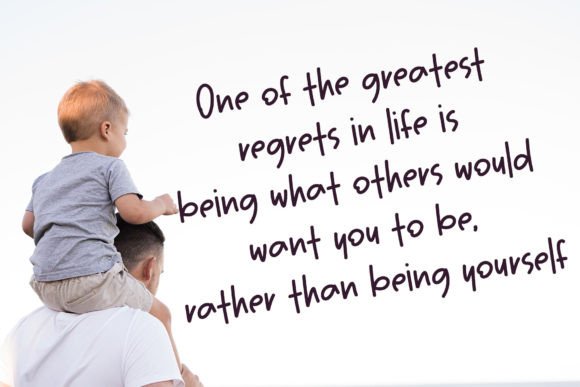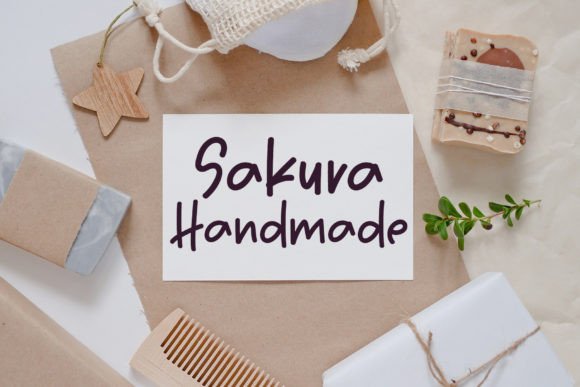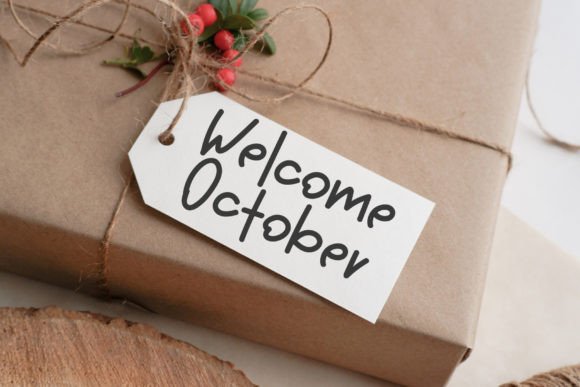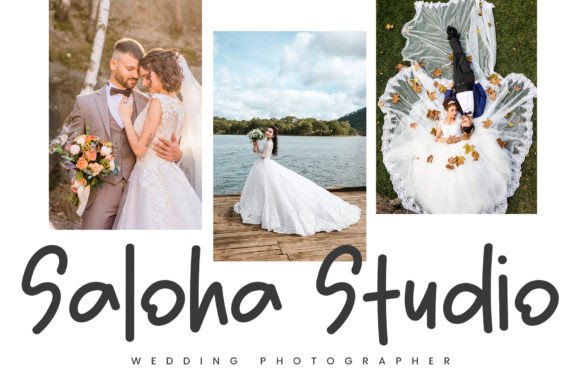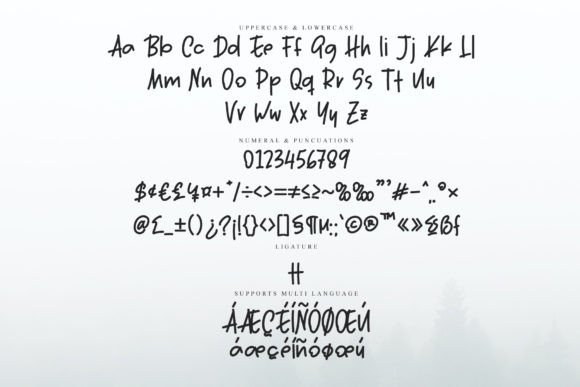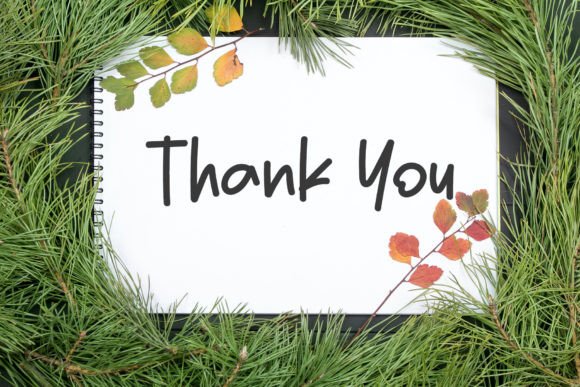
Skeleton Font
About Skeleton Font
Skeleton is a unique handwritten font, great for initials and display projects like magazines and crafts. It is also great for labels, posters, flyers, or anything that needs a handmade touch.